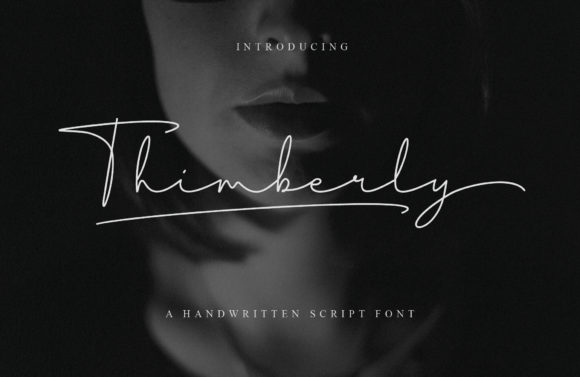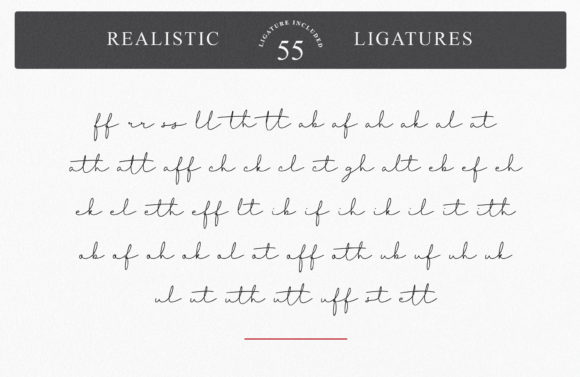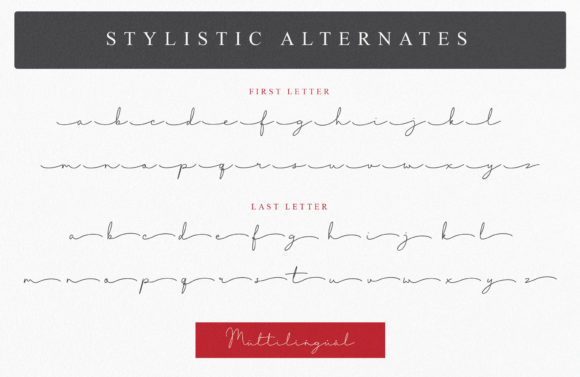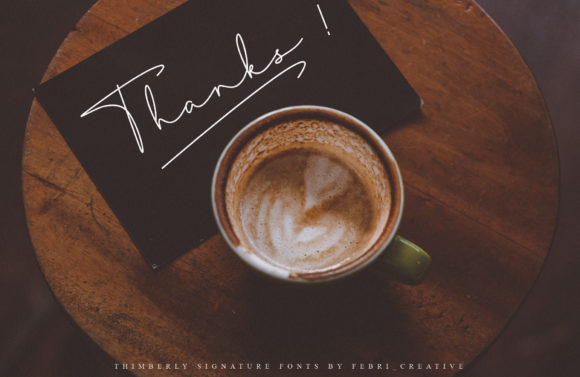
Thimberly Font
About Thimberly Font
Thimberly is a uniquely simple and casual handwritten font that will easily add a personal touch to any design project!